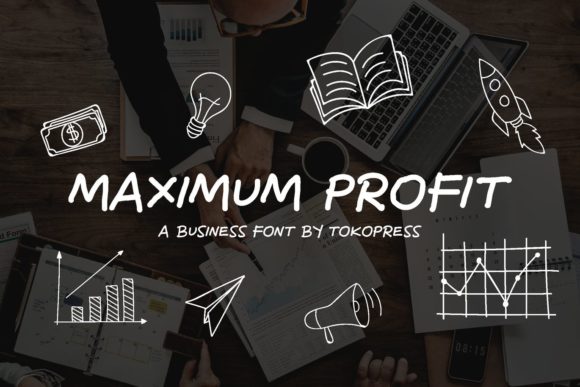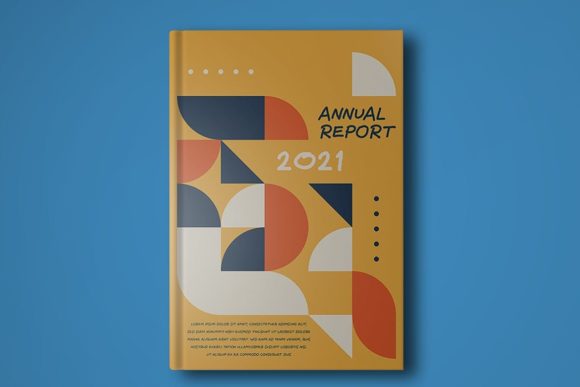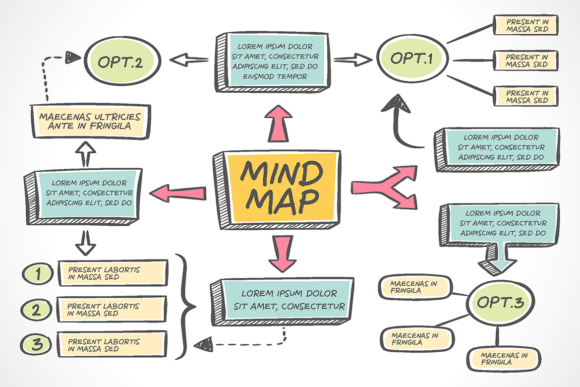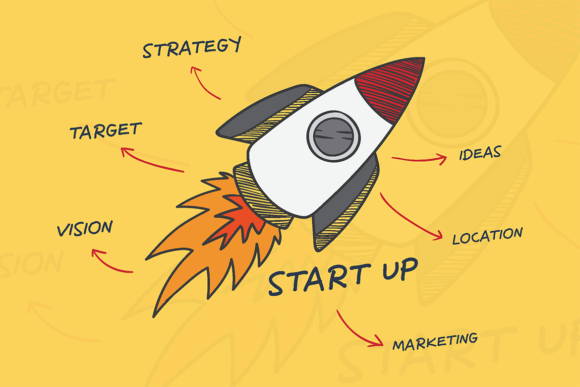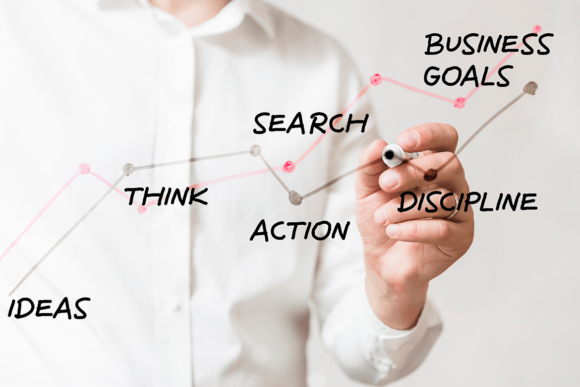
About Maximum Profit Font
Maximum ProfitĀ is a cute and simple lettered handwritten font that can be used for all chalkboard quotes or teaching material! Its authentic look will add a personal and realistic feel to your designs.